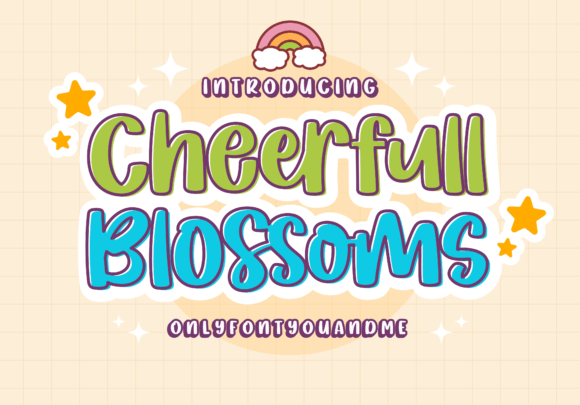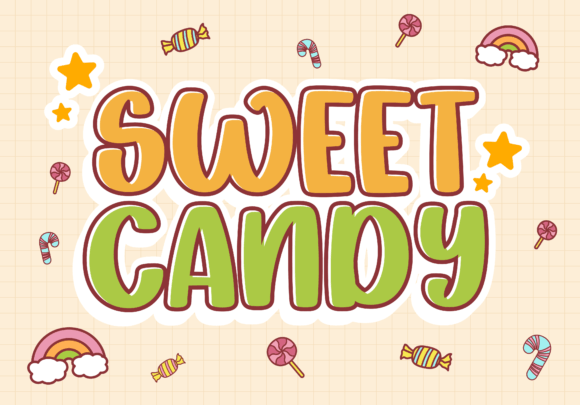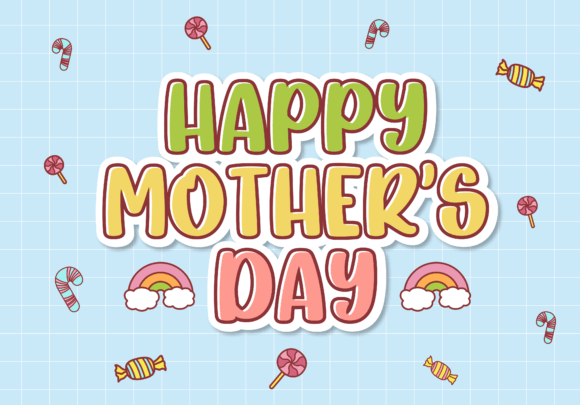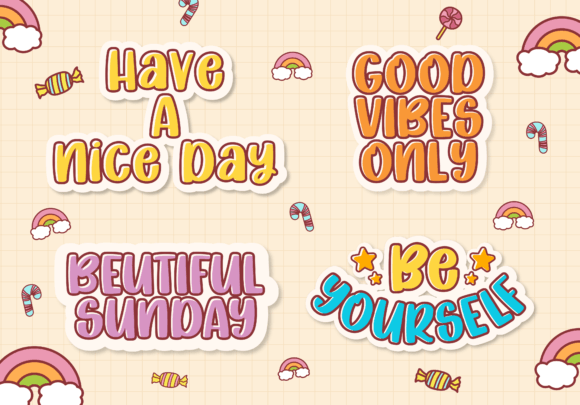
Cheerfull Blossoms Font: A Cute Display Font for Playful Designs
About the Cheerfull Blossoms Font
The Cheerfull Blossoms Font offers a perfect balance of form and function for your design needs. Cheerfull Blossoms is a fun and colorful display font. It is perfect for your designs such as book covers, posters, packaging, merchandise, logotype, and much more.